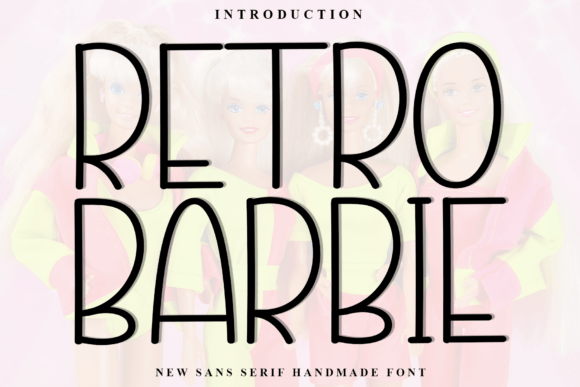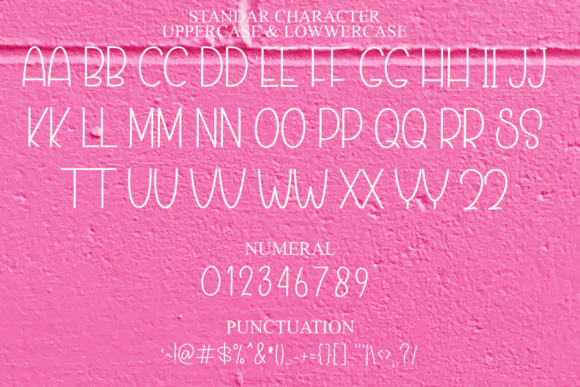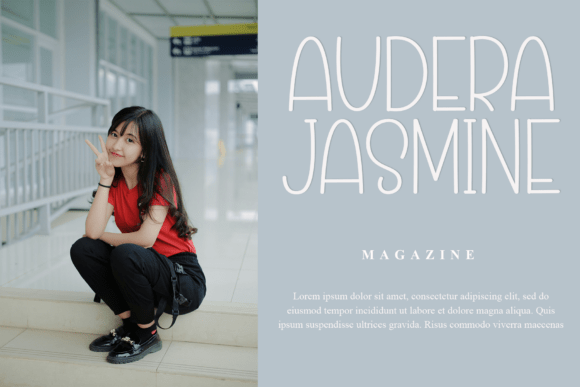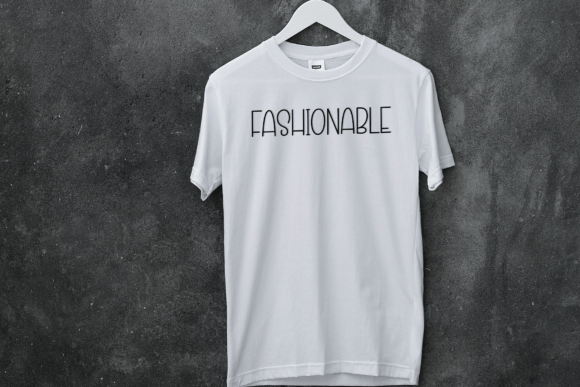
Retro Barbie Font
About the Retro Barbie Font
Get ready to be inspired by Retro Barbie Font, a fresh and dynamic typeface for modern creators. Retro Barbie is a casual and creative font that exudes warmth and friendliness. Its round, playful strokes create a relaxed and approachable feel, perfect for personal projects, invitations, and social media graphics. The font’s charming, hand-drawn aesthetic adds a fun and unique touch to any design.
Retro Barbie’s playful energy makes it ideal for projects requiring a fun, approachable aesthetic. It shines in headlines, short-form text on packaging, and social media content. Consider it for branding projects targeting younger demographics or those emphasizing a lighthearted, friendly tone. Avoid using it for body copy or lengthy text blocks; its casual nature can hinder readability in extended passages.
Pairing Retro Barbie effectively depends on the desired contrast. A clean sans-serif like Open Sans would provide a solid, legible counterpoint for body text, while a classic serif like Garamond could add a touch of sophistication. For a more playful feel, consider pairing it with a script font, but keep the script usage limited to avoid visual clutter.
The font’s overall personality is best described as cheerfully casual and charming. Its hand-drawn quality adds a distinctive handcrafted feel, making it unsuitable for projects demanding a polished or high-end look.
Retro Barbie Font Usage Examples
Retro Barbie Font Example